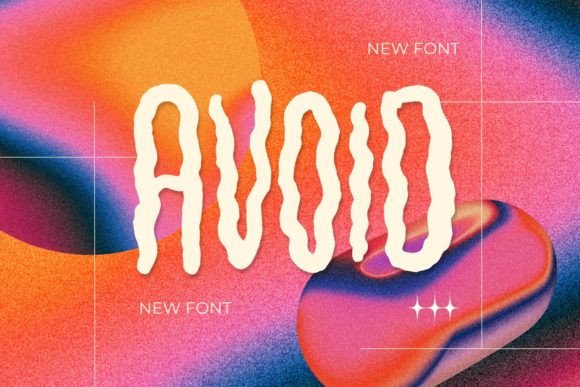
Avoid: A Bold Display Font That Anchors Your Editorial Voice
It started with a single line of text — the title of my latest lifestyle blog post: “How to Make Space for What Matters.” I’d just finished the draft, and the words felt warm, grounded, intentional. But the header font? It was polite. Too polite. It sat there quietly, like a guest who forgot to bring dessert. I needed something that didn’t just say the title — something that held it, honored it, gave it weight. That’s when I opened Avoid.
Avoid isn’t subtle. It’s a display font built for presence — thick, confident strokes; generous letterforms with subtle tension in their curves; a rhythm that feels both architectural and alive. It doesn’t whisper. It settles. And because it’s a sans-serif font designed for impact — not utility — it thrives where attention matters most: covers, headers, chapter openers, pull quotes, and any moment your reader pauses, even briefly, to take it in.
I tested Avoid first on the cover of a digital magazine feature about mindful home cooking — a 12-page editorial spread meant to live equally well on screen and as a downloadable PDF. The title “Warmth, Not Speed” sat across a soft linen background. With Avoid set at 48pt, tracking slightly open, the letters didn’t compete with the imagery — they anchored it. Their boldness didn’t shout over the quiet mood of the piece; instead, it created a visual threshold, inviting the reader to step in with intention.
That’s the quiet power of Avoid: it supports tone rather than overrides it. In a wedding guide I designed last spring — clean, tender, paper-inspired — I used Avoid only for section titles (“The First Look,” “Vows & Variations,” “What to Keep”) paired with a gentle serif for body text. The contrast wasn’t jarring; it was respectful. Avoid held space for meaning, while the serif carried the story forward, legible and unhurried.
For printable planners and coaching workbooks, Avoid shines in headings and module labels — “Your Weekly Intentions,” “Reflection Prompts,” “Next Steps.” Its generous x-height and sturdy proportions hold up beautifully in PDF exports and printed formats, even at smaller sizes (36–42pt). On mobile screens, it remains legible as a hero element — though I wouldn’t use it for long paragraphs or navigation menus. It’s not built for endurance reading. It’s built for emphasis.
Which brings us to pairing — the quiet architecture behind strong editorial design. Avoid breathes best beside typefaces that offer contrast without conflict. I’ve found it pairs thoughtfully with warm serifs like Sorts Mill Goudy or Adobe Text for body copy, and with airy, neutral sans serifs like Inter or Lato for captions, subheads, or interface text. The key is balance: let Avoid declare, then let another voice explain. That dynamic creates hierarchy that feels intuitive, not imposed.
In newsletter graphics, Avoid works especially well for one-line subject headers or banner text above a featured article. Because its letterforms are so distinct — no ambiguity between O and Q, no thin terminals begging for sharpening — it renders cleanly across email clients and dark-mode interfaces. Just avoid tight tracking or all-caps settings unless you’re aiming for deliberate intensity; its natural spacing already carries authority.
What surprised me most about Avoid wasn’t its boldness — I expected that — but how calm it felt in practice. There’s no aggression in its weight, no gimmickry in its shapes. It’s confident without being loud, modern without feeling cold. In a recipe ebook I designed for a friend’s seasonal cooking series, I used Avoid only for dish names (“Roasted Carrot & Harissa Dip,” “Oat Milk Panna Cotta”) against muted food photography. Each title became a quiet invitation — not a command, not a flourish, but a pause worth taking.
That’s the editorial gift of a well-chosen display font: it doesn’t distract from meaning — it deepens it. Avoid doesn’t ask to be everywhere. It asks to be *right here*, in this moment, holding space for what comes next. Whether you’re designing a digital magazine layout, setting a chapter opener in a self-published guide, or choosing the headline font for your next newsletter, it’s worth asking: what do I want this title to do? If the answer is *anchor*, *invite*, or *honor* — not just announce — Avoid earns its place.
Typography, at its kindest, is an act of care — for the reader, for the words, for the silence between them. Avoid reminds me that boldness and tenderness aren’t opposites. They’re two notes in the same chord.